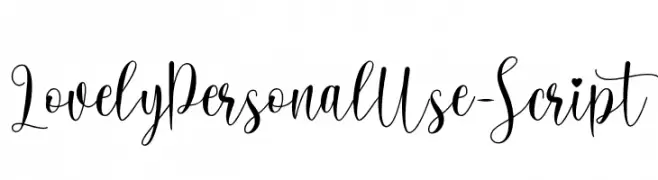
A lively, handwritten font with tall, narrow letterforms and playful curves.
A charming and elegant script font with fluid, cursive strokes.
A sophisticated and fluid script typeface with elegant, flowing lines.